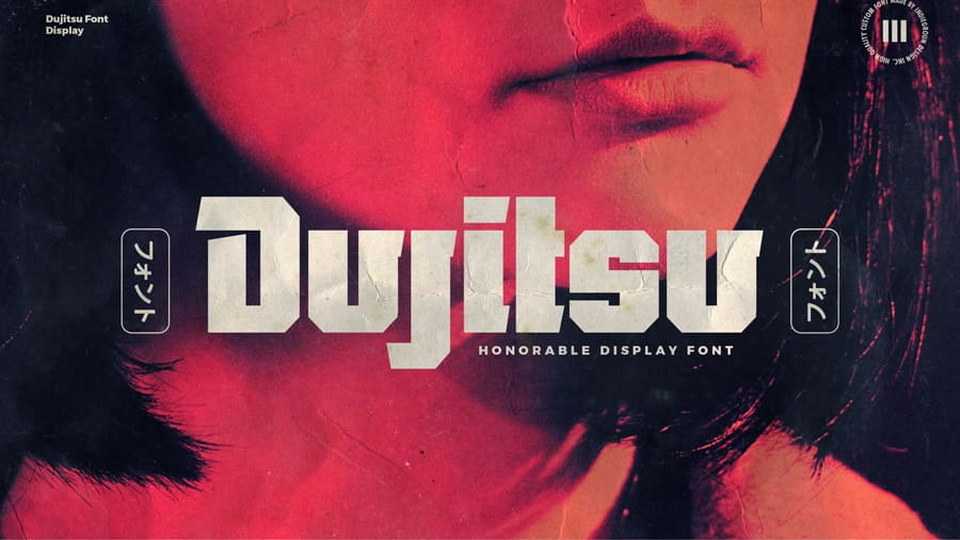
Download Dujitsu font, a Japan-inspired display typeface. Dujitsu font is perfect for your heavy titles. It gives an oriental style to the typography of your artworks.